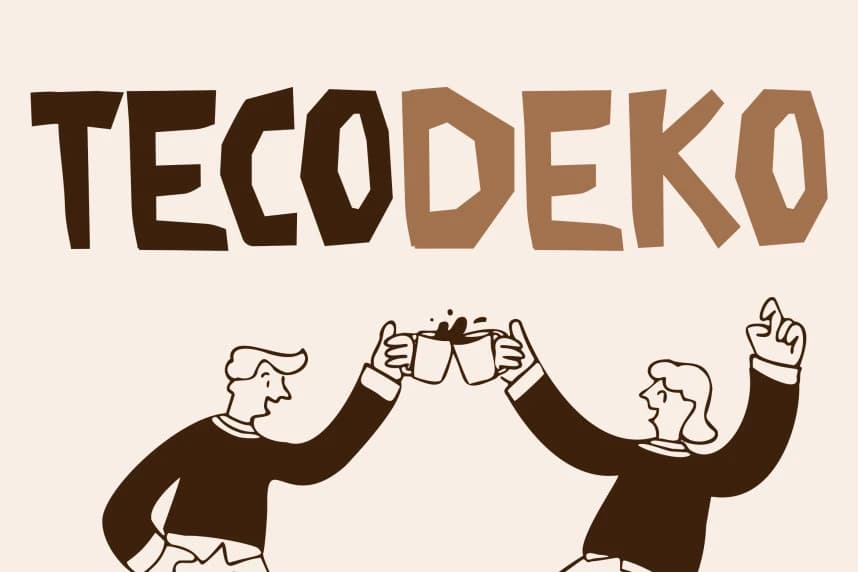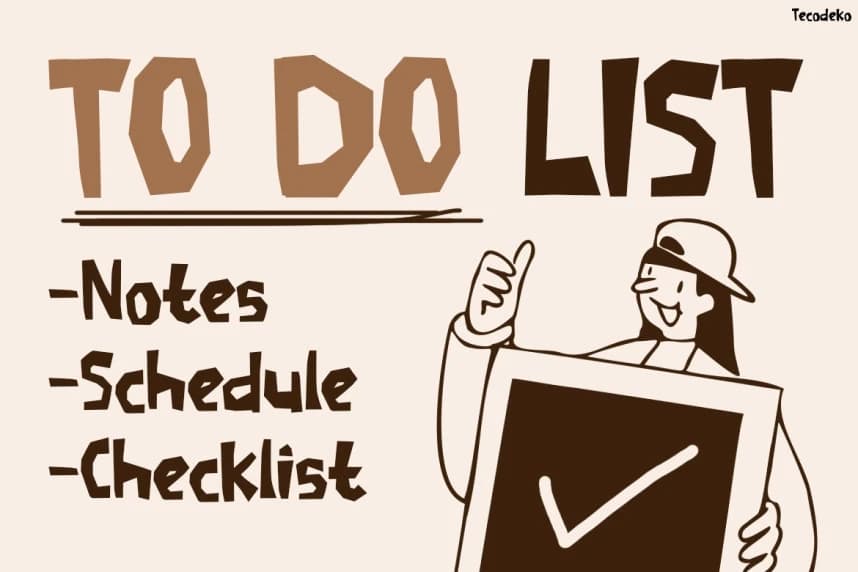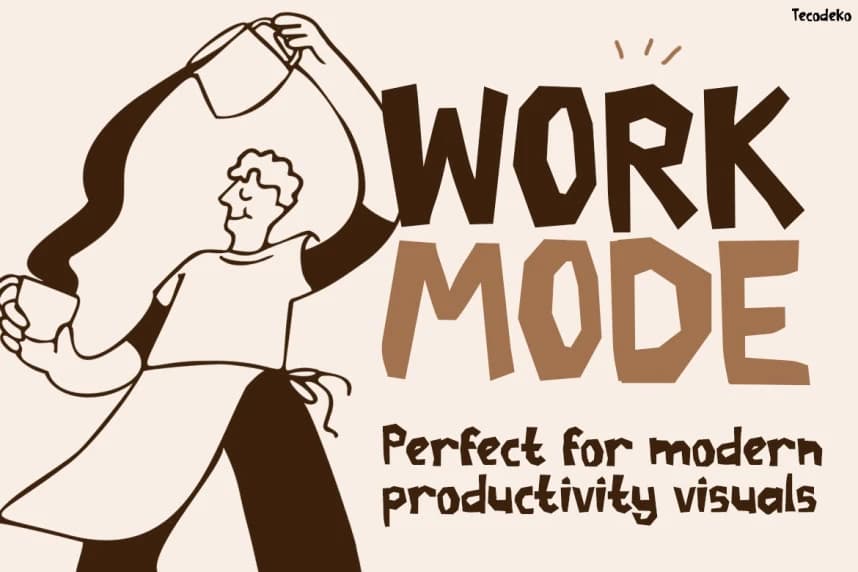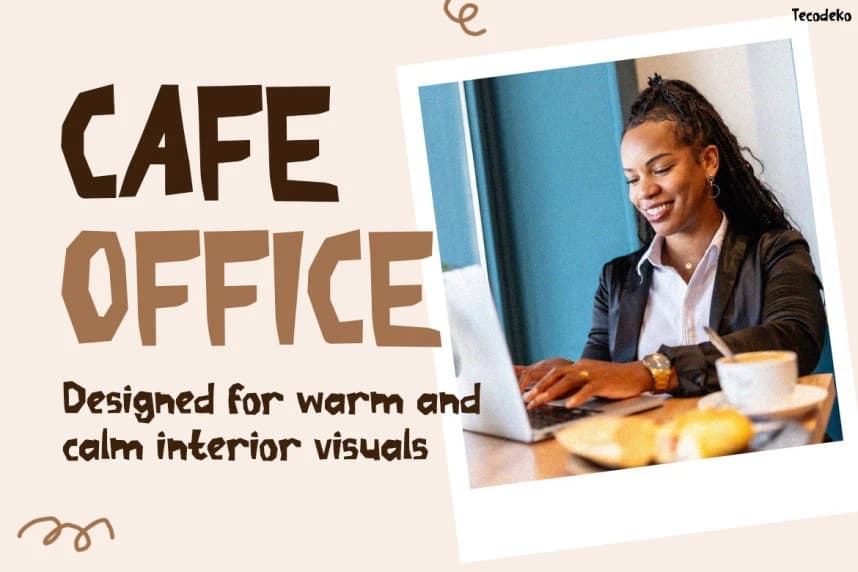
Tecodeko Playful Font
Tecodeko Playful Font is a fun, handcrafted typeface that brings warmth, creativity, and a playful charm to every design. Moreover, its irregular shapes and hand-drawn style create a natural, friendly feel that instantly grabs attention.